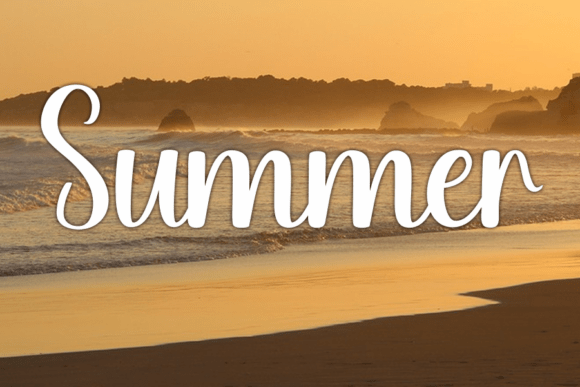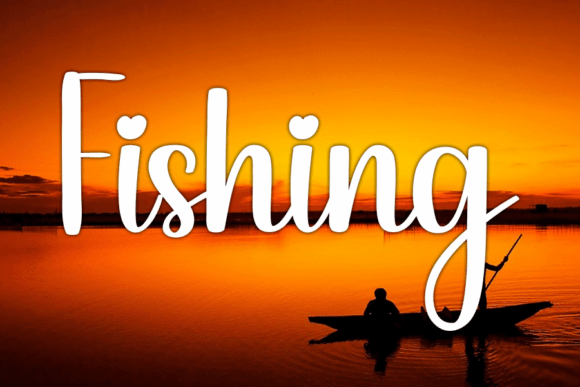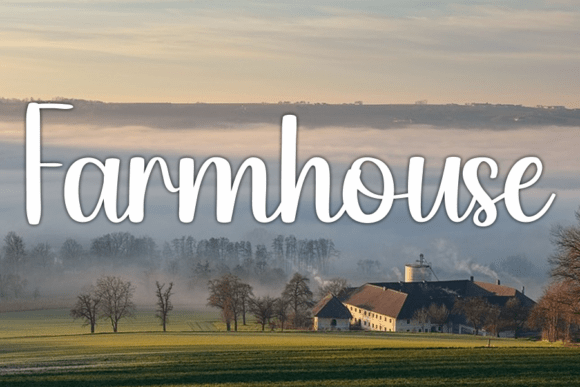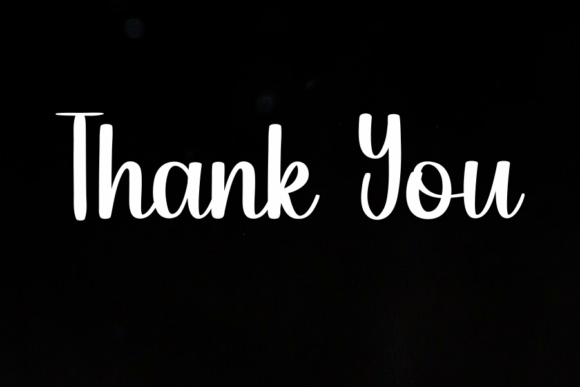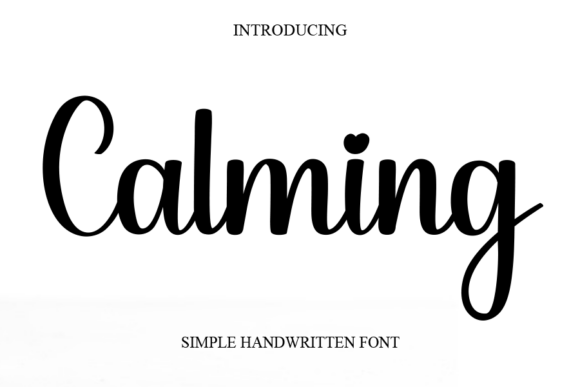
Discover the Soothing Charm of Calming Font: Elevate Your Designs with a Simple Handwritten Touch
In the world of typography, fonts play a crucial role in conveying emotions and setting the tone for a project. For designers and crafters seeking to infuse their work with a sense of serenity and approachability, the Calming font is an excellent choice. This beautiful, simple handwritten font is designed to bring a wide range of applications to life, from greeting cards and invitations to headlines and more.
The Versatility of Calming Font
One of the standout features of the Calming font is its incredible versatility. Its gentle, flowing lines and natural feel make it suitable for a diverse array of projects. Whether you’re creating something as personal as a greeting card or as prominent as a headline, this font is guaranteed to add a simple and natural touch that resonates with your audience.
Imagine crafting a heartfelt greeting card for a special occasion. The Calming font, with its soft and soothing appearance, can help convey your emotions more effectively than a standard, impersonal typeface. Similarly, when used in headlines, it can add a touch of warmth and personality to your content, making it more engaging and relatable.
Key Features of Calming Font
- Simple and Handwritten: The Calming font boasts a simple, handwritten design that exudes warmth and authenticity. Its uncomplicated nature makes it highly legible and versatile.
- Natural Feel: The font’s organic, flowing lines give it a natural feel that can add a sense of calmness and serenity to your designs.
- Wide Spectrum of Applications: From greeting cards and invitations to headlines and more, the Calming font can elevate a wide range of projects with its soothing charm.
- Easy to Read: Despite its handwritten nature, the Calming font is remarkably legible, making it suitable for both digital and print applications.
How to Use Calming Font in Your Designs
Incorporating the Calming font into your projects is straightforward. Here are a few ideas to get you started:
- Greeting Cards and Invitations: Use the Calming font to create personalized and heartfelt greeting cards and invitations for special occasions.
- Headlines and Titles: Add a touch of warmth and personality to your headlines and titles with the Calming font, making your content more engaging and relatable.
- Digital and Print Media: The Calming font is suitable for both digital and print applications, including blogs, social media posts, flyers, and more.
Tips for Maximizing the Impact of Calming Font
To get the most out of the Calming font, consider the following tips:
- Pair with Complementary Fonts: Combine the Calming font with other fonts that complement its natural and soothing feel to create visually appealing designs.
- Use Appropriate Colors: Select colors that match the tone and mood of your project. Soft, pastel colors can enhance the calming effect of the font.
- Experiment with Sizes and Styles: Don’t be afraid to experiment with different sizes and styles of the Calming font to add emphasis and create visual hierarchy in your designs.
The Calming font is a beautiful, simple handwritten font that can add a touch of serenity and approachability to your designs. Its versatility, natural feel, and ease of use make it an excellent choice for designers and crafters looking to create a wide range of projects. By incorporating the Calming font into your work, you can create designs that are not only visually appealing but also emotionally resonant. So why wait? Discover the soothing charm of the Calming font and elevate your designs to new heights!